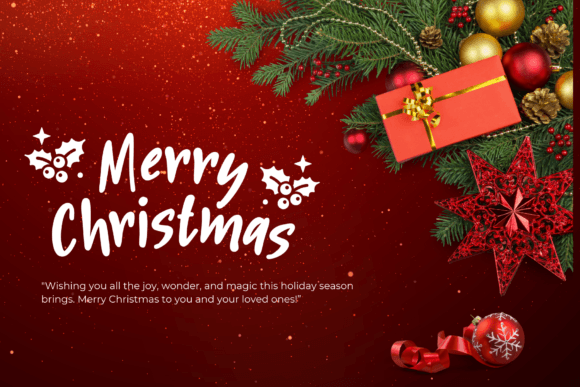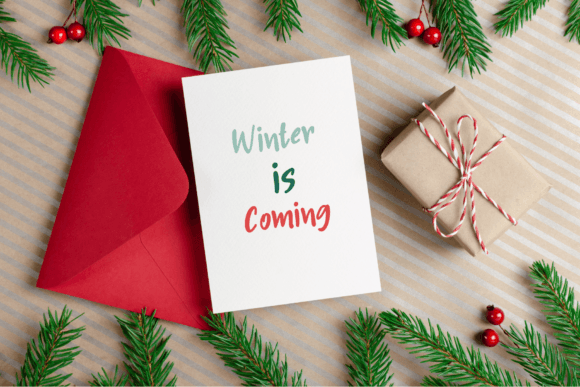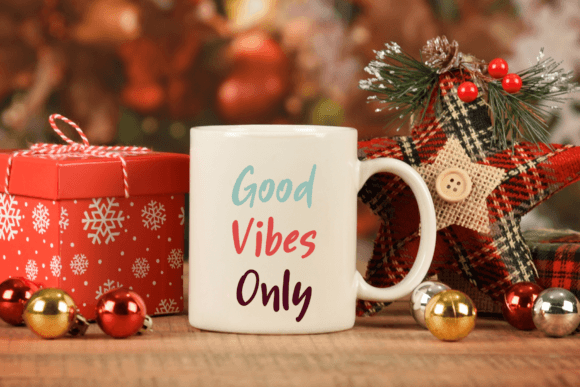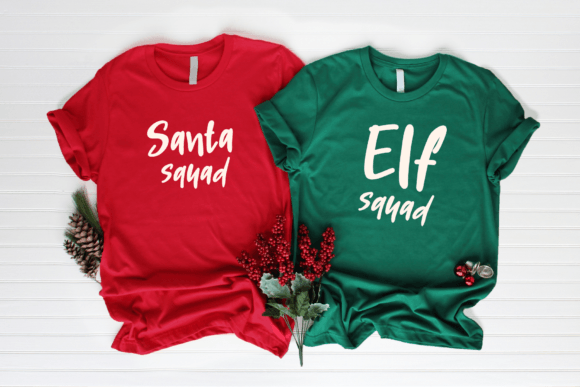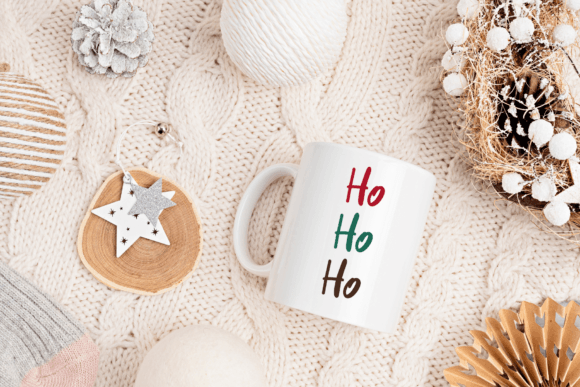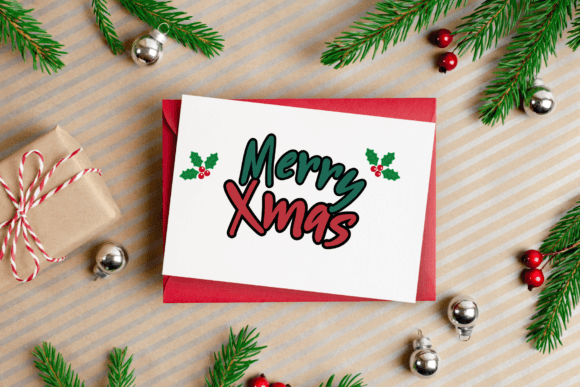
Introducing Charity Font: The Perfect Choice for Creative Projects
Are you a designer, crafter, or DIY enthusiast looking for a unique and playful font to add a personal touch to your projects? Look no further than Charity Font, a fun handwritten font that embodies playfulness and authenticity. In this article, we’ll explore the features and benefits of Charity Font, and how it can elevate your designs, from blog posts and logos to invitations, greeting cards, and more.
What is Charity Font?
Charity Font is a carefully crafted handwritten font that exudes a sense of playfulness and friendliness. Its unique and authentic style makes it perfect for a wide range of creative projects, from digital designs to print materials. Whether you’re working on a blog post, logo, branding, ad, invitation, greeting card, planner, photo album, or decoration, Charity Font is the ideal choice.
Key Features of Charity Font
- Playful and Authentic Style: Charity Font has a distinctive handwritten style that adds a personal touch to any design.
- Versatile: Suitable for a wide range of projects, from digital designs to print materials.
- Easy to Read: The font is clear and legible, making it perfect for body text and headings.
- High-Quality: Professionally crafted to ensure a high level of quality and consistency.
Benefits of Using Charity Font
So, why choose Charity Font for your next project? Here are just a few benefits:
- Adds a Personal Touch: Charity Font’s unique style adds a personal touch to your designs, making them stand out from the crowd.
- Enhances Creativity: The font’s playful and authentic style inspires creativity and imagination.
- Perfect for Branding: Charity Font is ideal for branding and logo design, helping to create a consistent and recognizable visual identity.
Ideas for Using Charity Font
Charity Font is incredibly versatile, and can be used in a wide range of projects, including:
- Blog Posts: Add a personal touch to your blog posts with Charity Font, making them more engaging and readable.
- Logos and Branding: Use Charity Font to create a unique and recognizable visual identity for your brand.
- Invitations and Greeting Cards: Add a touch of personality to your invitations and greeting cards with Charity Font.
- Planners and Photo Albums: Use Charity Font to create beautiful and functional planners and photo albums.
- Decorations: Add a personal touch to your decorations, such as party decorations, with Charity Font.
Tips for Getting the Most Out of Charity Font
To get the most out of Charity Font, here are a few tips:
- Experiment with Different Sizes: Charity Font looks great in a range of sizes, from small body text to large headings.
- Pair with Other Fonts: Try pairing Charity Font with other fonts to create a unique and interesting visual effect.
- Use in Combination with Images: Use Charity Font in combination with images to add a personal touch to your designs.
In conclusion, Charity Font is a fun and playful handwritten font that embodies playfulness and authenticity. With its unique style, versatility, and ease of use, it’s the perfect choice for designers, crafters, and DIY enthusiasts looking to add a personal touch to their projects. Whether you’re working on a blog post, logo, branding, ad, invitation, greeting card, planner, photo album, or decoration, Charity Font is sure to elevate your designs and inspire creativity.